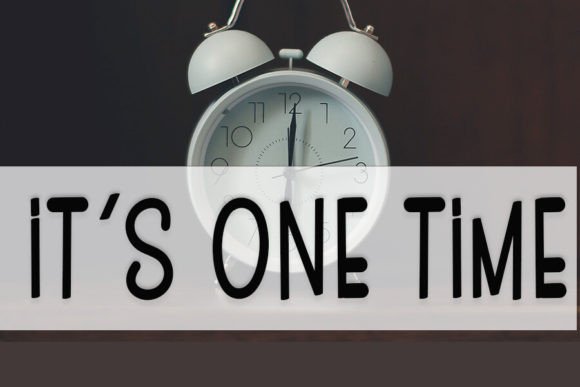
Jumped Font
Jumped is a fun and quirky handwritten font. Whether you’re looking for fonts for Instagram or cute fonts for DIY projects, this typeface will turn any creative idea into a true piece of art!